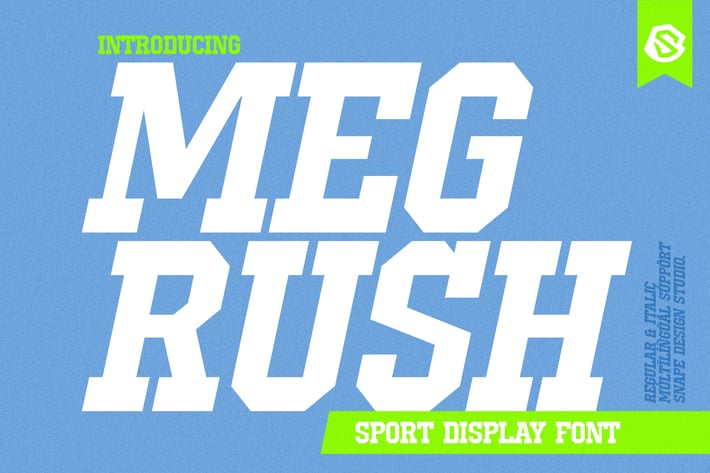
Megrush - Sport Display Font
Megrush is a Bold Sport Sans Serif font designed to deliver a dynamic, modern, and energetic vibe. With its bold, clean, and well-balanced letterforms, Megrush is perfect for branding sports clubs, athletic events, and other projects requiring a sporty and professional touch.
This font combines strength with versatility, making it suitable for a wide range of applications such as logos, posters, jerseys, merchandise, and billboards. Its solid sans-serif style ensures maximum readability, making it an ideal choice for bold and impactful messaging.
Use Megrush to enhance your visual identity and leave a lasting impression in the world of sports!
Multilingual Support for global projects
Available in Regular and Italic styles for added versatility